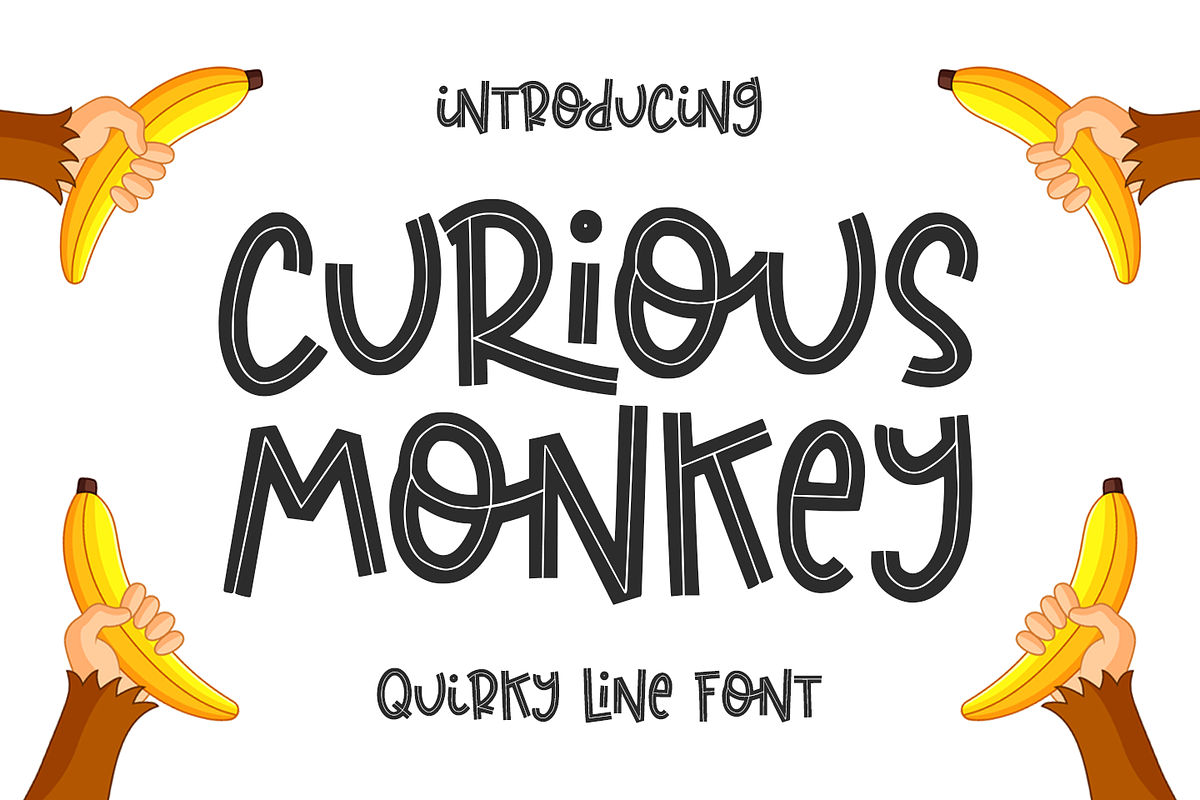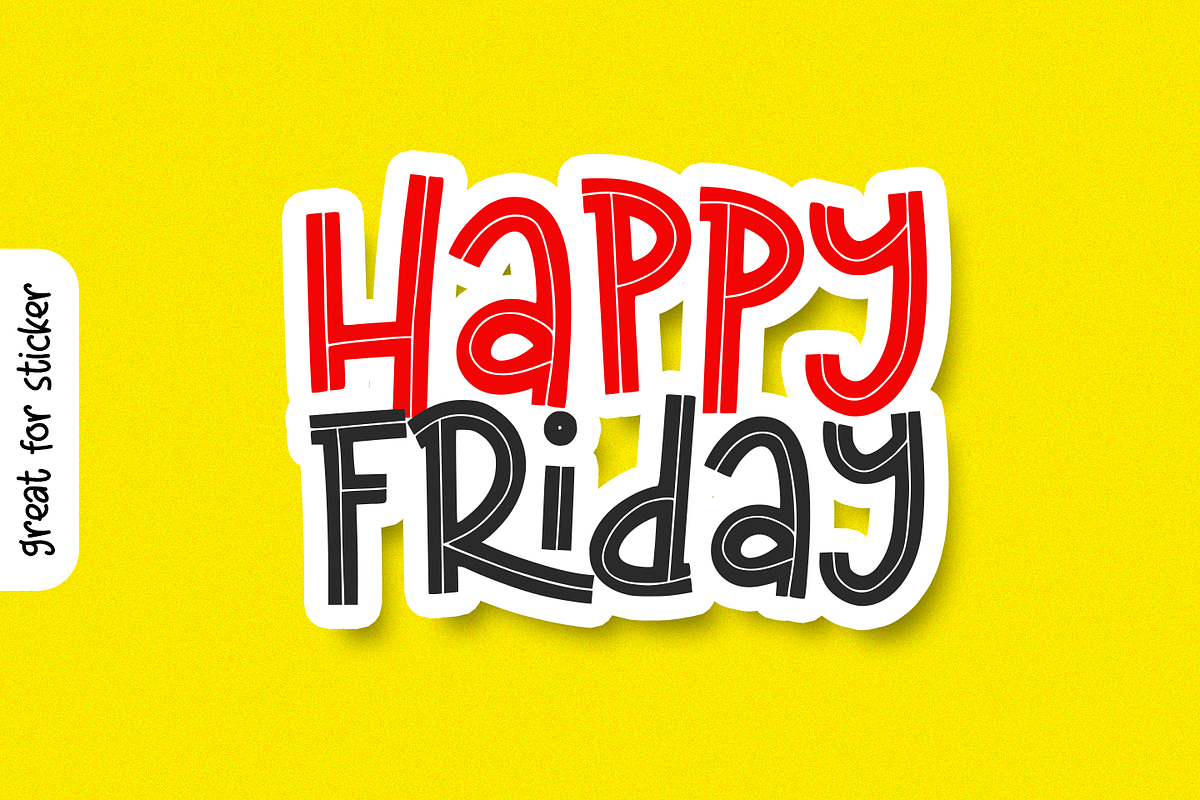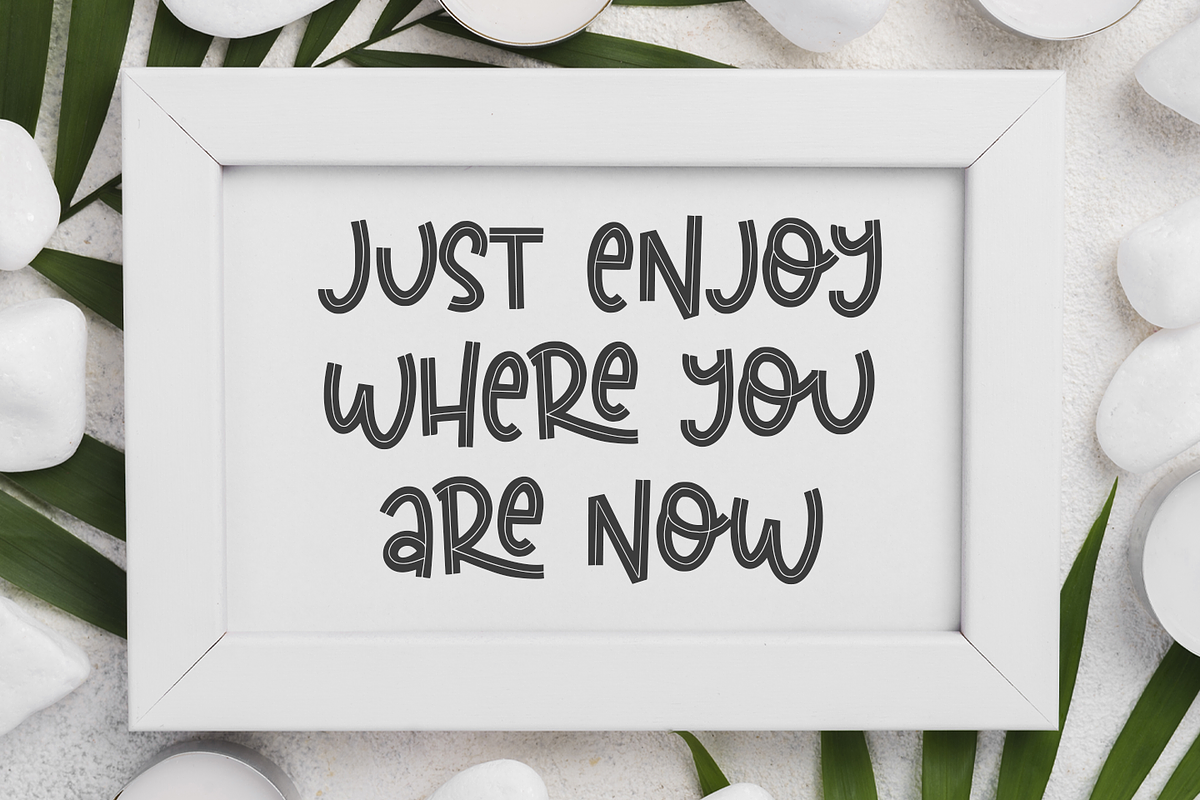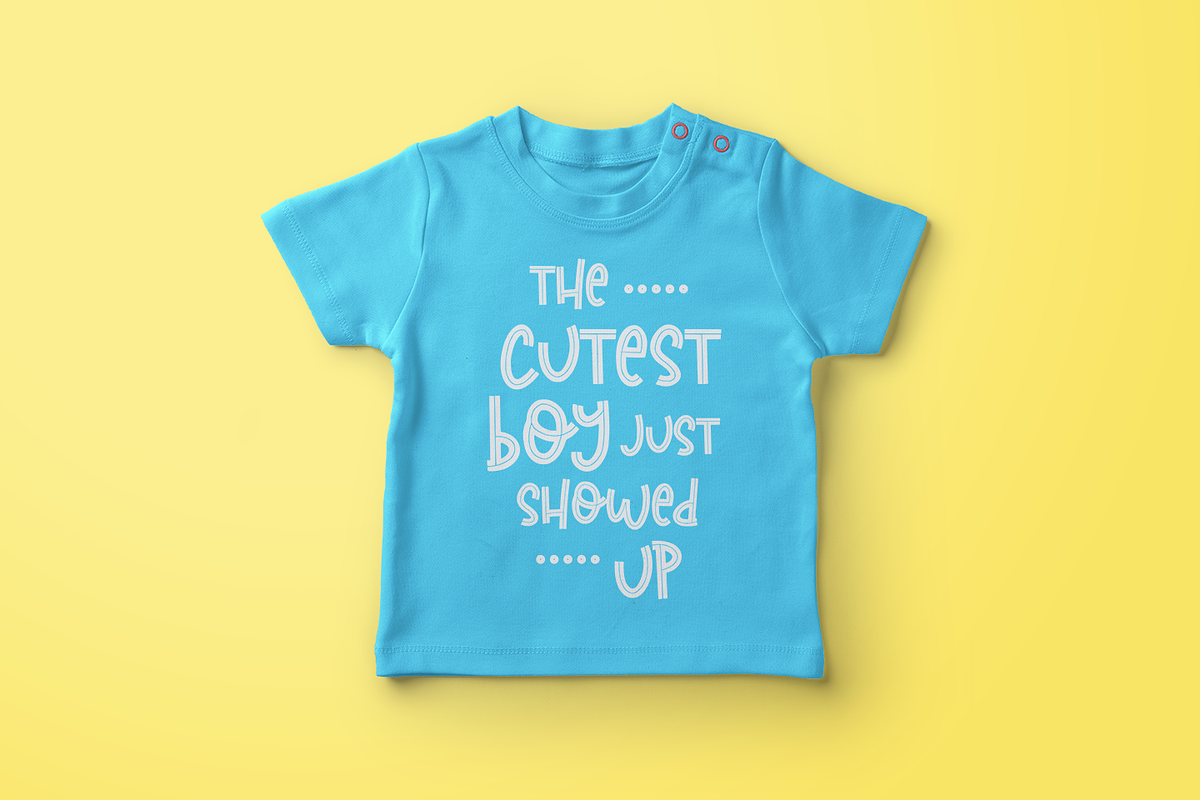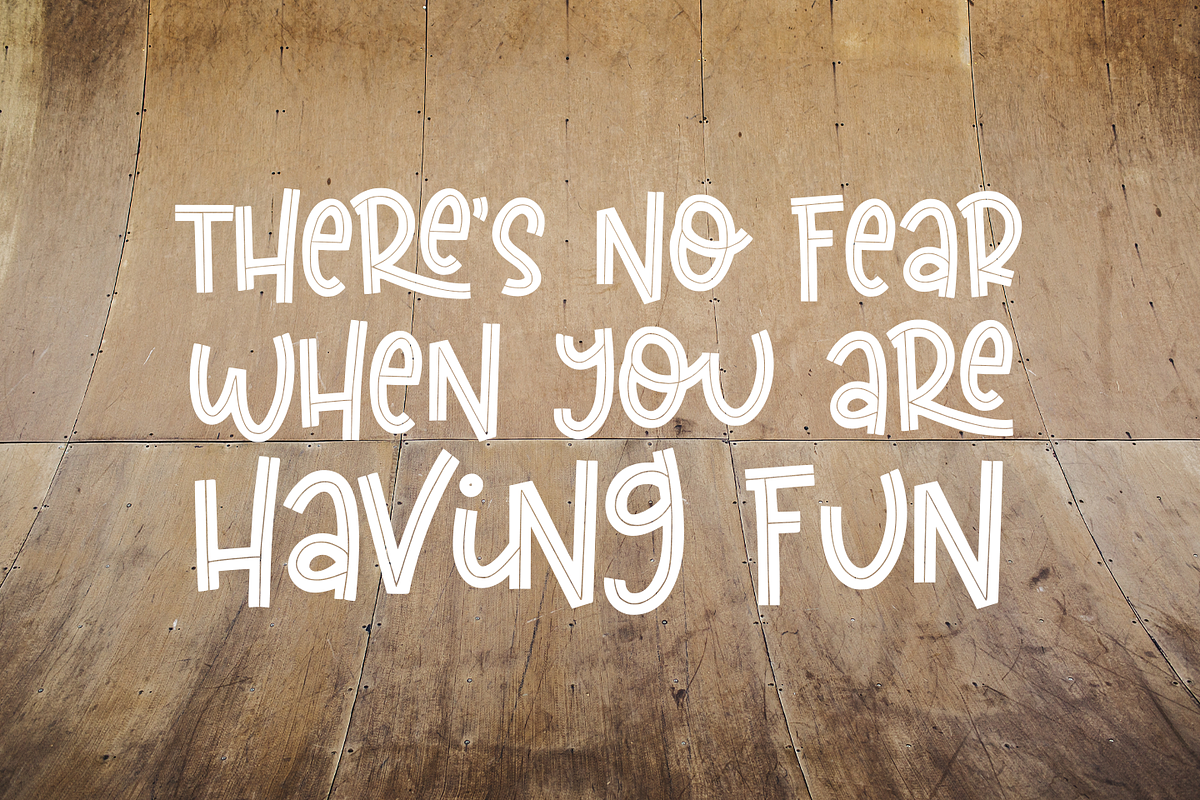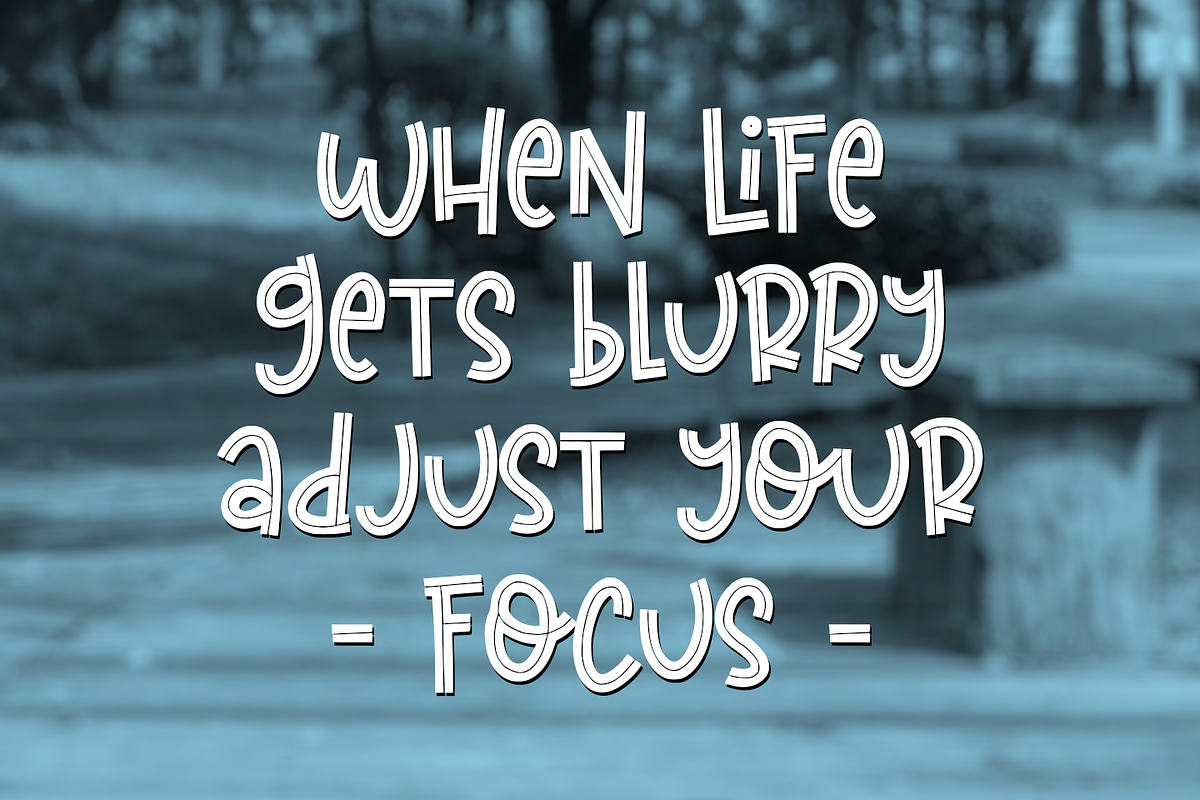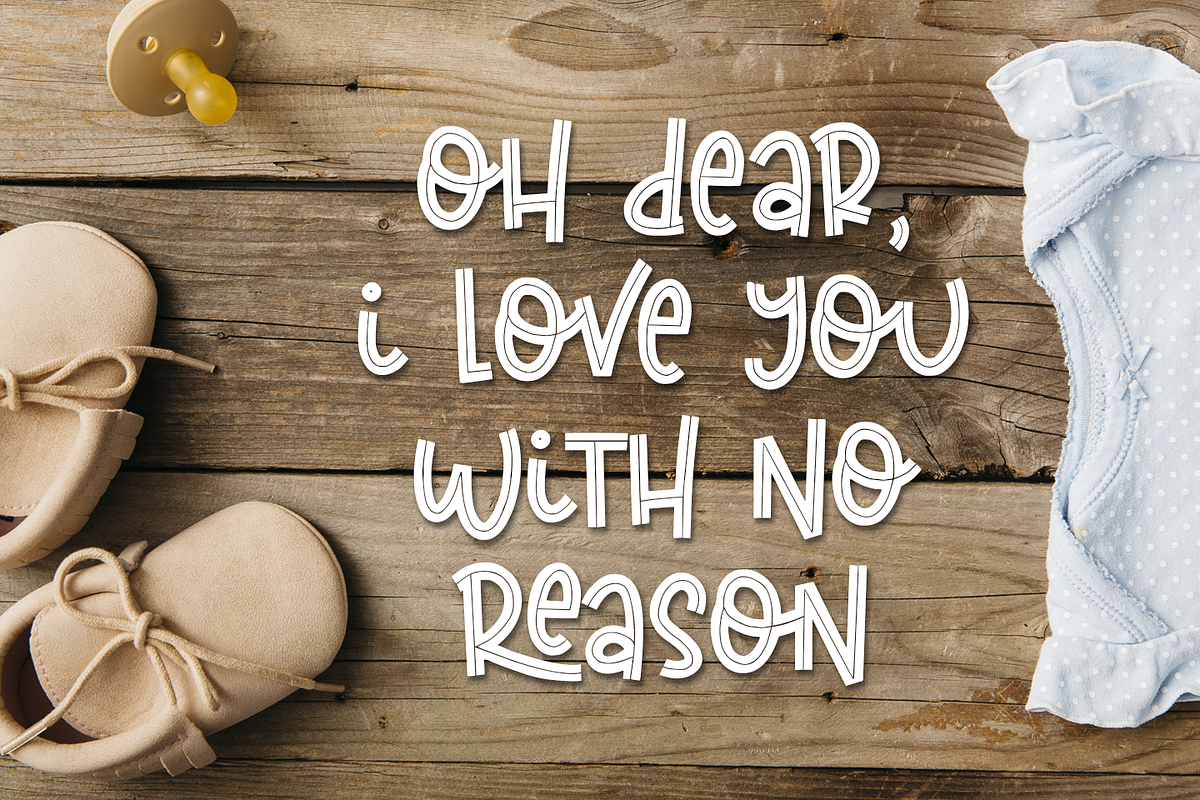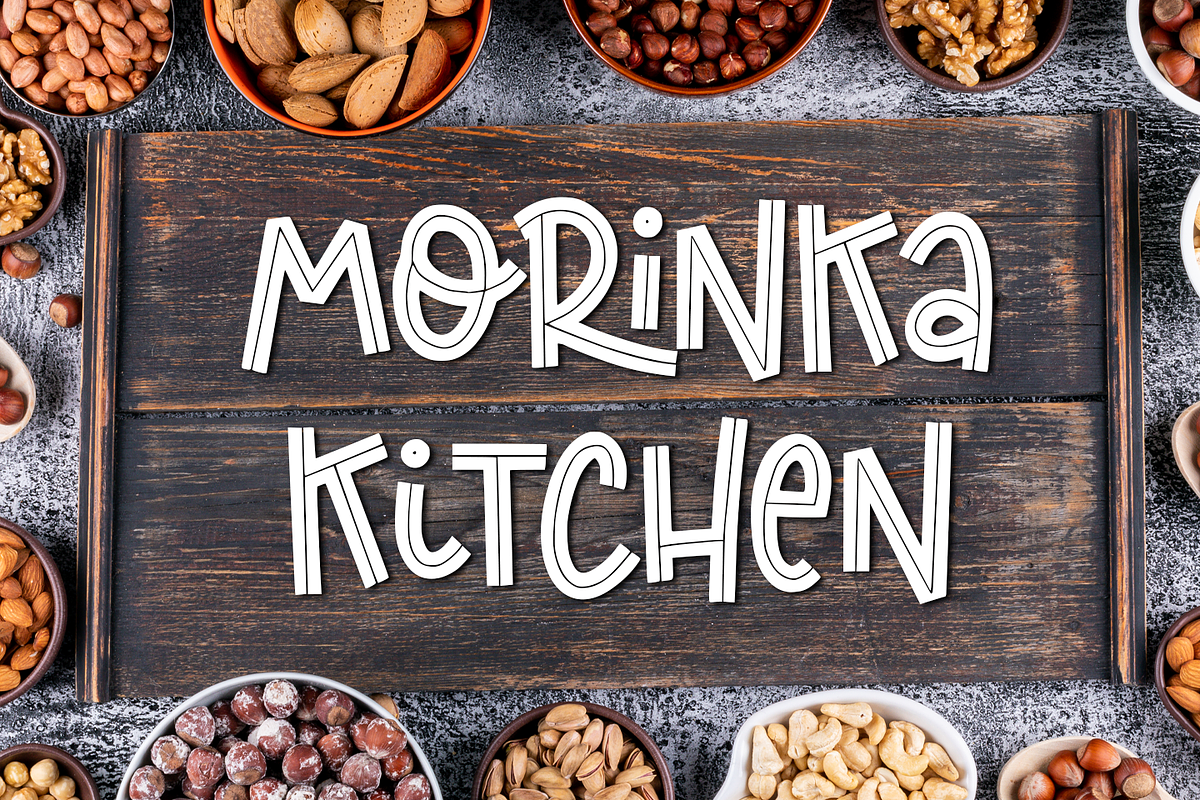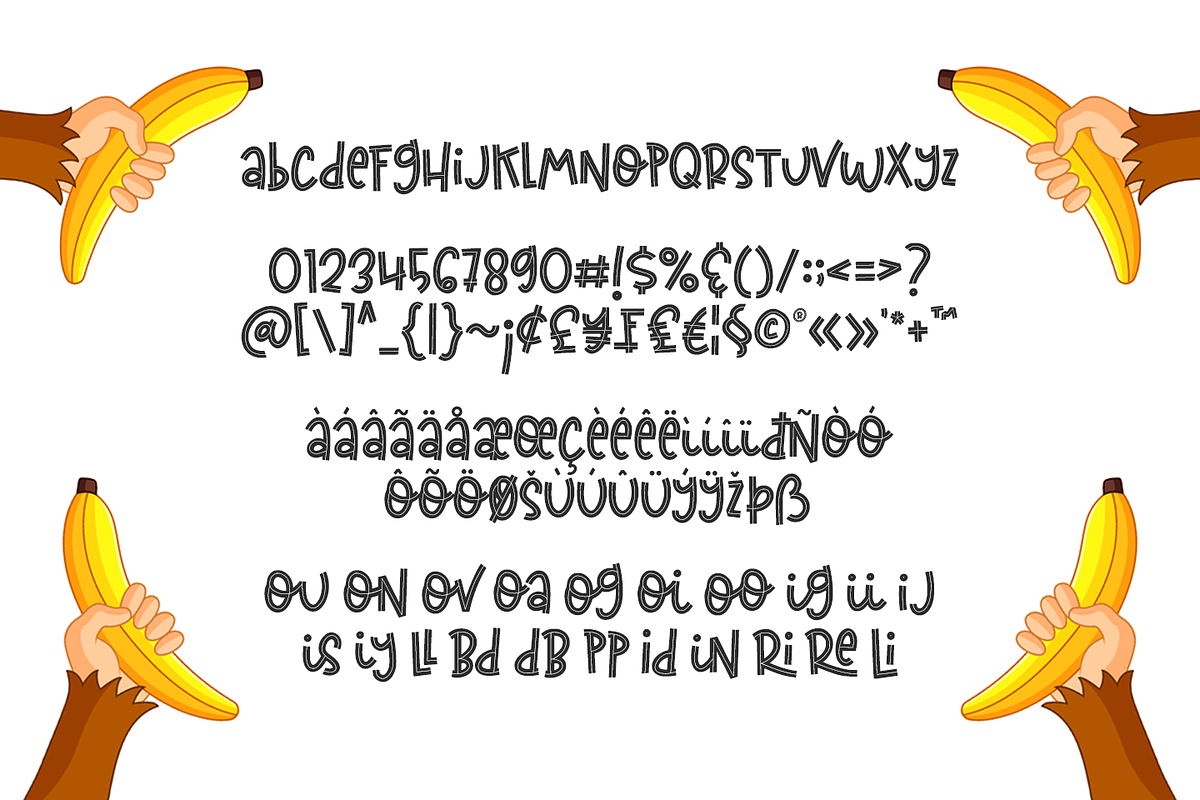
Curious Monkey
introducing
CURIOUS MONKEY - the quirky in-line font -
This font is great for cutting, printing, logo, quotes, branding, packaging, and more craft projects.
- Basic characters
- Numeral & punctuation
- a lot of Ligatures